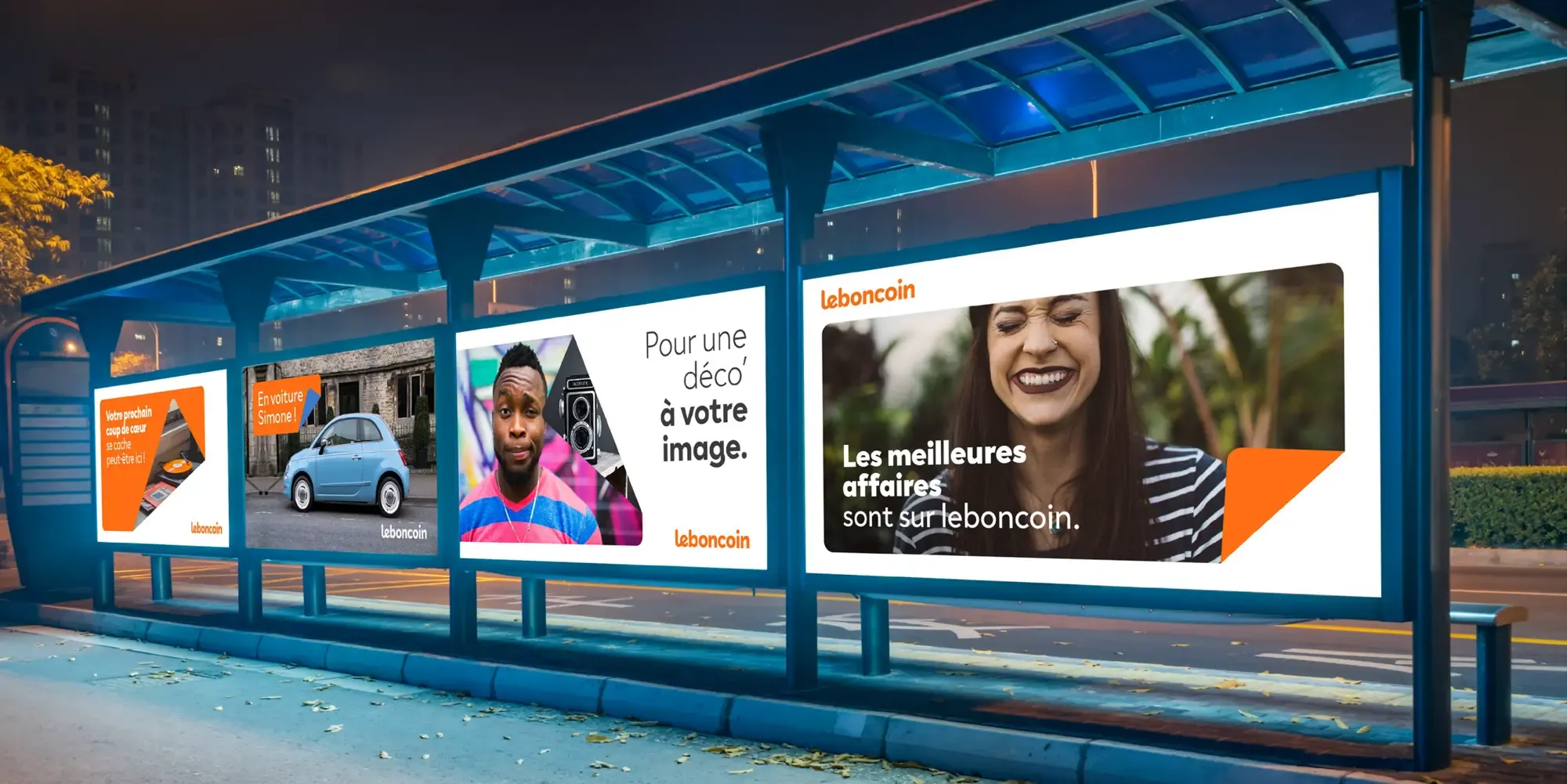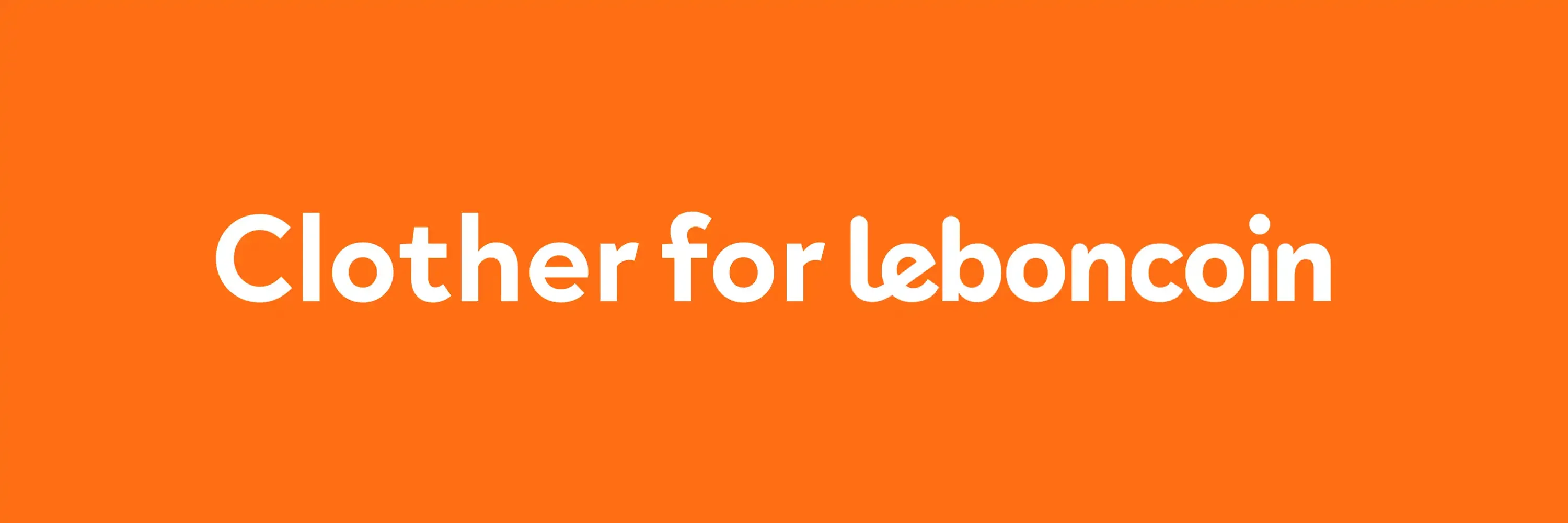
Clother for Leboncoin
Introducing Clother for leboncoins Redesign
In their latest redesign, leboncoin has chosen the versatile and elegant Clother font, designed by Black Foundry, for their advertisements and overall visual identity. The redesign, orchestrated by 4uatre, leverages Clother’s unique qualities to enhance leboncoin’s brand presence.
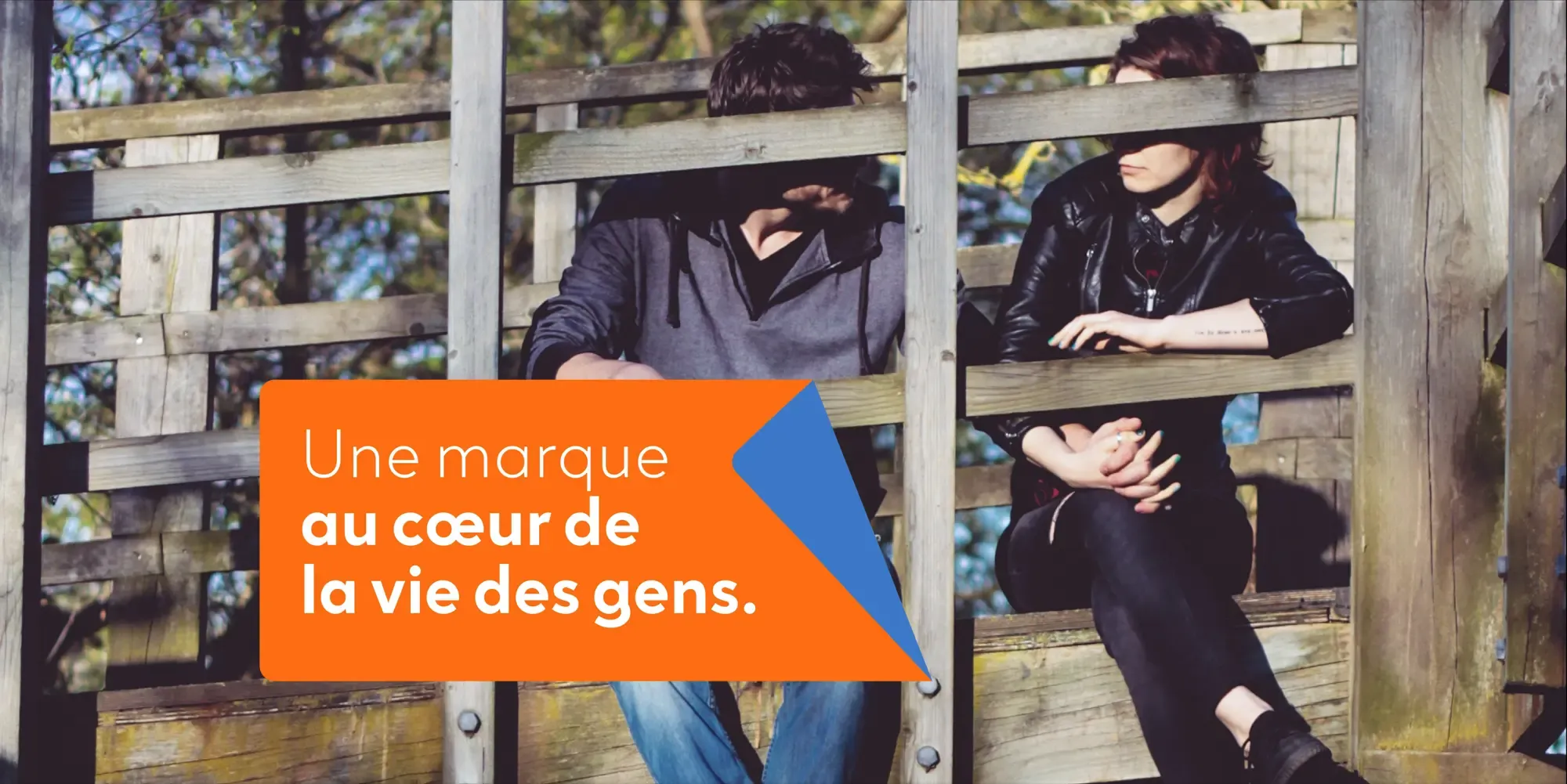
Why Clother?
Versatility: Clother is a typeface that seamlessly adapts to various contexts, making it perfect for diverse applications in digital and print media.
Elegance and Modernity: Its clean lines and contemporary feel align well with modern branding needs, providing a sophisticated look without compromising readability.
Extensive Character Set: With a comprehensive glyph set, Clother supports multiple languages and symbols, ensuring global accessibility and consistency in communication.
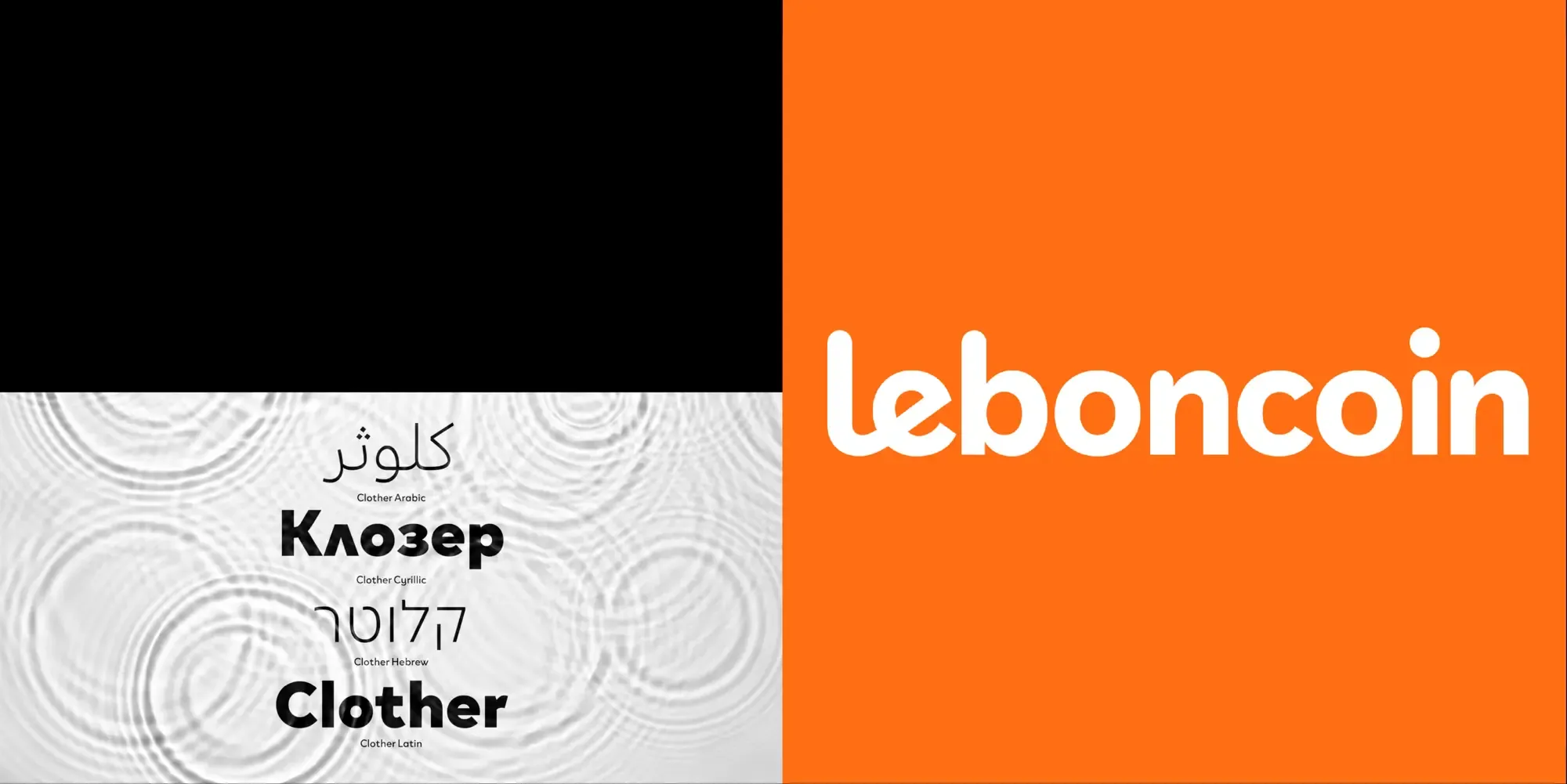
Clother in Action at leboncoin
Advertisements: The font is prominently featured in leboncoin’s advertising campaigns, where its clean and modern design helps convey messages effectively and attractively.
Consistency Across Media: Clother is used across various touchpoints, from digital platforms to print materials, ensuring a cohesive brand experience.
Brand Identity: The adoption of Clother has provided leboncoin with a distinct and memorable typographic identity that stands out in the competitive marketplace.
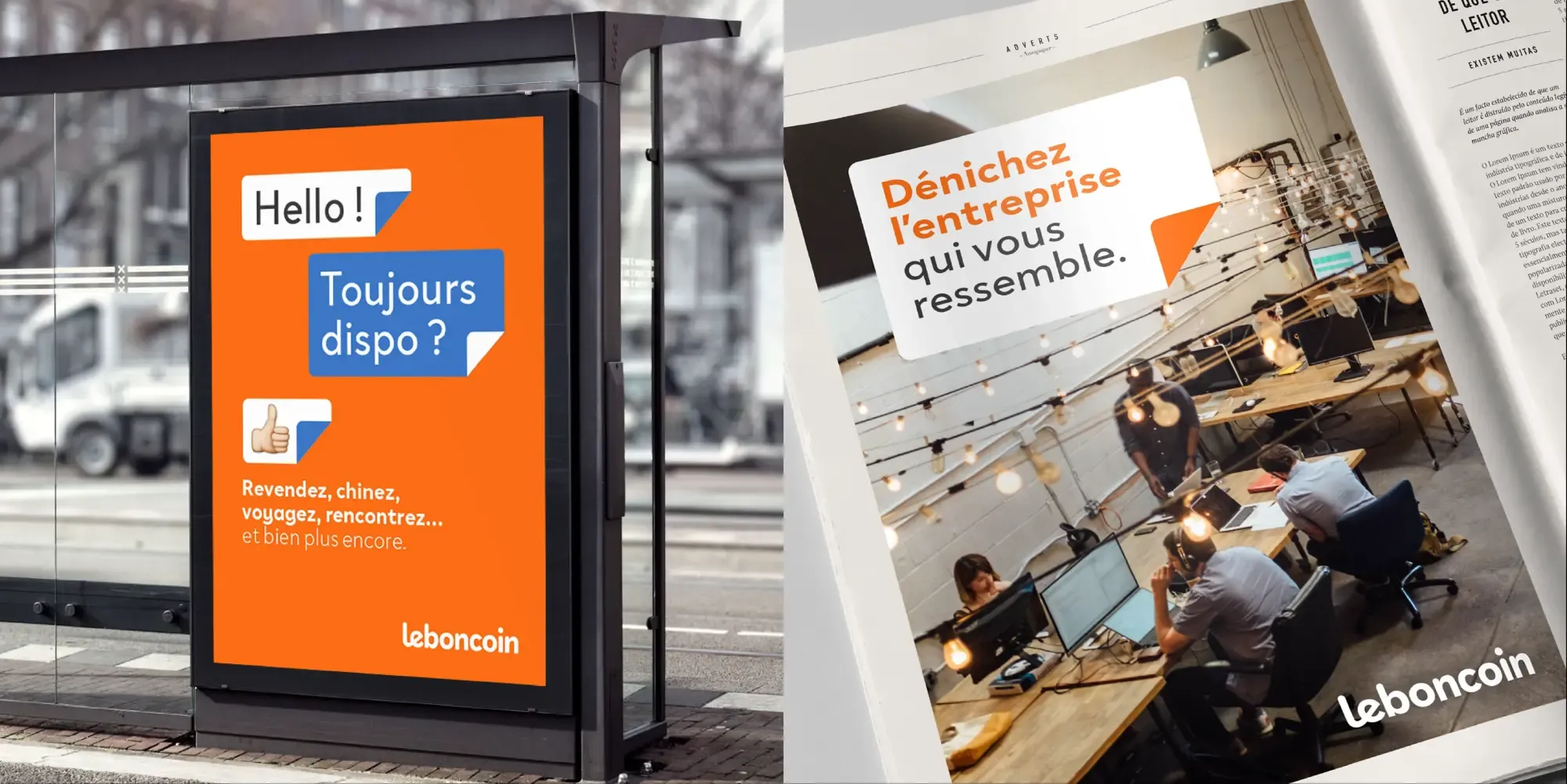
Conclusion
The choice of Clother for leboncoin’s redesign underscores the font’s versatility, elegance, and ability to deliver a unified and modern brand identity. Through its strategic use in advertisements and other media, Clother helps leboncoin maintain a consistent and engaging presence.